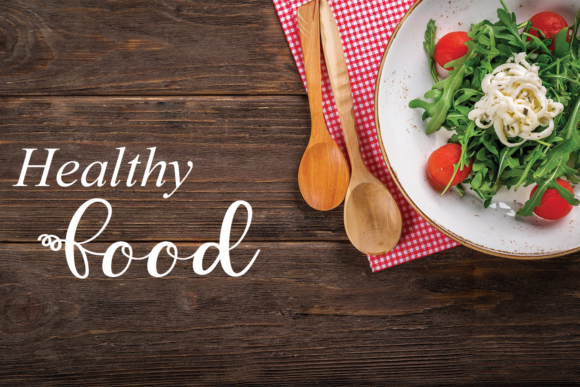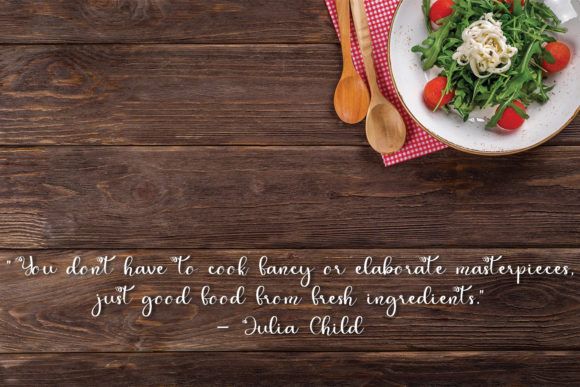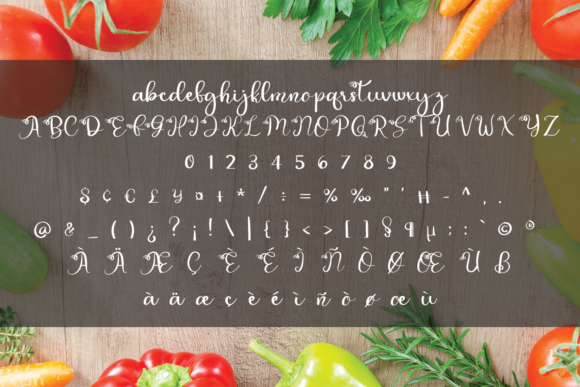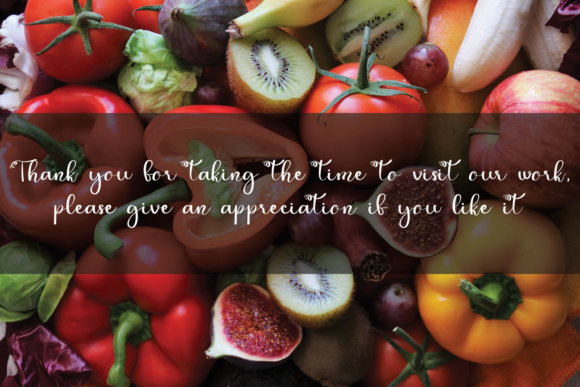
Introducing Avocado Font: The Chic and Modern Script Font for Your Design Needs
Are you a designer or crafter looking for a font that can add a touch of elegance and romance to your projects? Look no further than Avocado Font, a beautiful and modern script font that’s perfect for a variety of design ideas. In this article, we’ll take a closer look at Avocado Font, its features, and how you can use it to elevate your designs.
What is Avocado Font?
Avocado Font is a chic, modern script font that’s designed to add a touch of sophistication and glamour to your designs. With its gentle and flowing curves, this font is perfect for creating beautiful and eye-catching designs that will leave a lasting impression. Whether you’re working on a logo, branding project, or social media graphics, Avocado Font is the perfect choice.
Features of Avocado Font
So, what makes Avocado Font so special? Here are some of its key features:
- Modern and Chic Design: Avocado Font has a modern and chic design that’s perfect for creating contemporary designs.
- Gentle and Flowing Curves: The font features gentle and flowing curves that give it a soft and romantic touch.
- Highly Versatile: Avocado Font is highly versatile and can be used on a variety of design projects, from logos and branding to social media graphics and more.
- Easy to Read: Despite its elegant design, Avocado Font is easy to read, making it perfect for body text and headlines.
How to Use Avocado Font in Your Designs
Avocado Font is a highly versatile font that can be used in a variety of design projects. Here are some ideas to get you started:
- Logos and Branding: Use Avocado Font to create a beautiful and memorable logo for your brand.
- Social Media Graphics: Add a touch of elegance to your social media graphics with Avocado Font.
- Wedding and Event Design: Avocado Font is perfect for creating beautiful wedding and event designs, such as invitations, programs, and more.
- Packaging Design: Use Avocado Font to add a touch of sophistication to your packaging design.
Tips for Pairing Avocado Font with Other Fonts
Pairing Avocado Font with other fonts can help create a unique and visually appealing design. Here are some tips for pairing Avocado Font with other fonts:
- Pair with a Sans-Serif Font: Pair Avocado Font with a sans-serif font, such as Arial or Helvetica, to create a beautiful contrast.
- Use a Serif Font for Body Text: Use a serif font, such as Times New Roman or Georgia, for body text to create a nice contrast with Avocado Font.
- Experiment with Script Fonts: Experiment with pairing Avocado Font with other script fonts to create a unique and elegant design.
Avocado Font is a beautiful and modern script font that’s perfect for designers and crafters looking to add a touch of elegance and romance to their projects. With its gentle and flowing curves, this font is highly versatile and can be used on a variety of design projects. Whether you’re working on a logo, branding project, or social media graphics, Avocado Font is the perfect choice. So why wait? Download Avocado Font today and start creating beautiful designs that will leave a lasting impression!